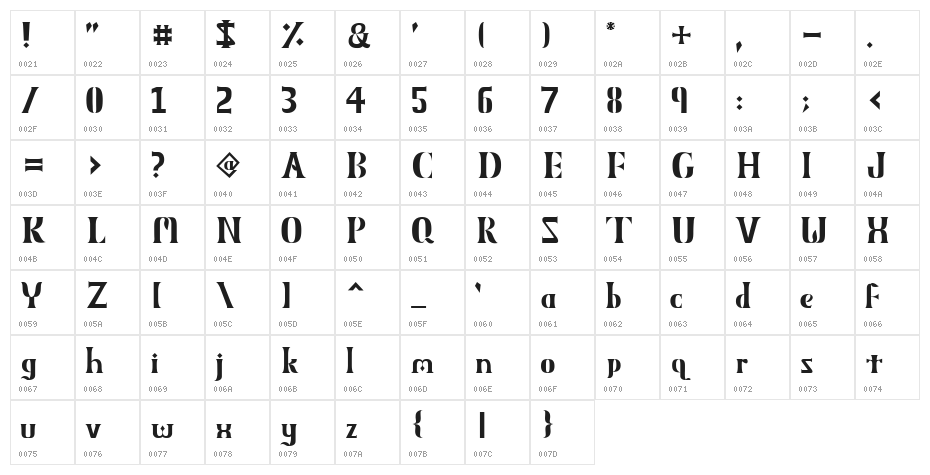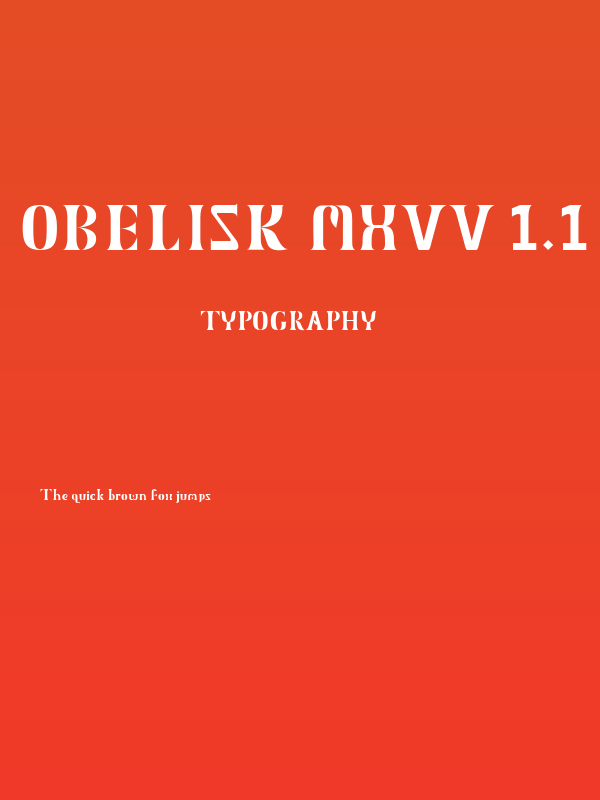
Obelisk MXVV 1.1 Font
Obelisk MXVV 1.1 Description
This font features a bold and striking design with a unique blend of modern and vintage elements. The uppercase letters have a strong presence with sharp angles and distinct cuts, giving them a dynamic and edgy look. The lowercase letters maintain a consistent style, with some characters exhibiting playful curves and unexpected twists. The numerals are robust and clear, ensuring readability while maintaining the font's overall aesthetic. Special characters are designed with the same attention to detail, making them stand out. This font's high contrast in stroke thickness adds to its dramatic appearance, making it suitable for impactful designs.
| Overall Style | Modern, Vintage |
| Proposed Projects | Ideal for branding, poster design, headlines, and any project requiring a bold and distinctive typeface. |